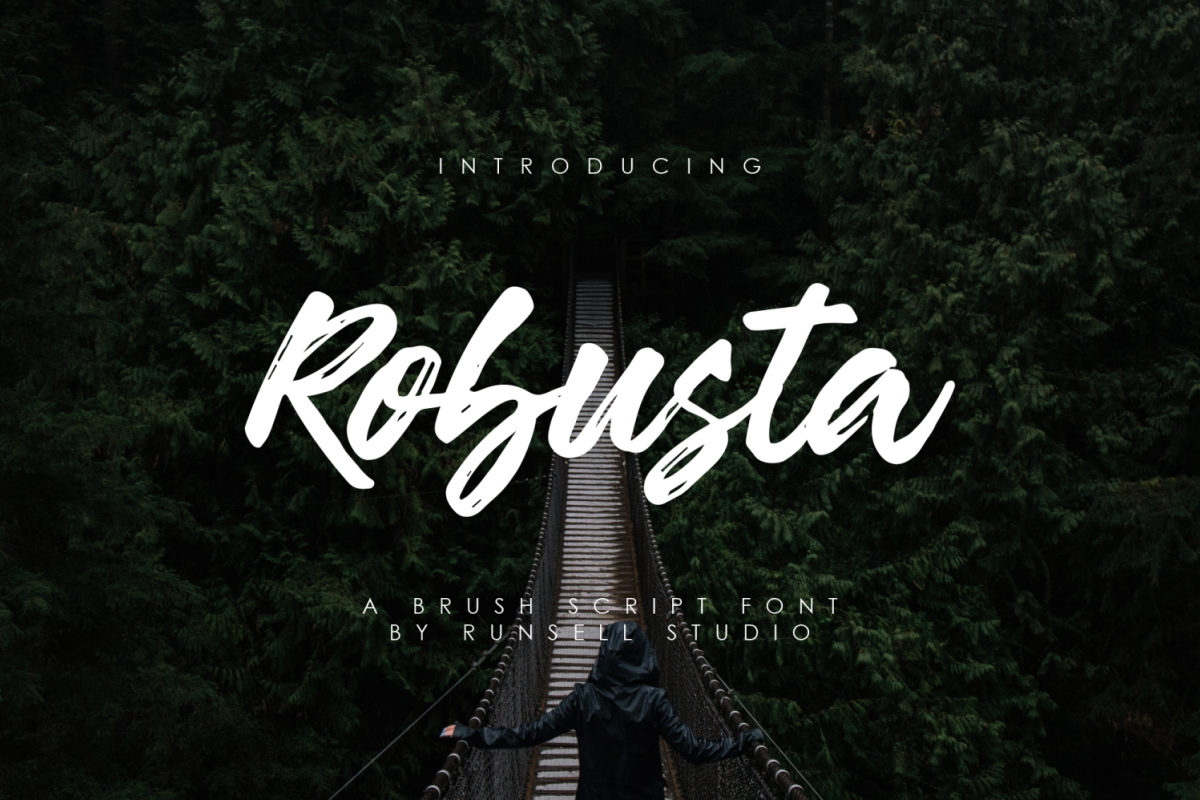
Robusta which has a brush script style. With quick dry strokes and a signature style, this font is best used for your design project that has the concept of fun, brave and sporty. Robusta can also be applied for lettering, logotype, branding, printing template, cover album and etc.File Include:
Robusta equipped with:
- Uppercase, lowercase, numeral and punctuation
- Stylistic alternates
- Swash